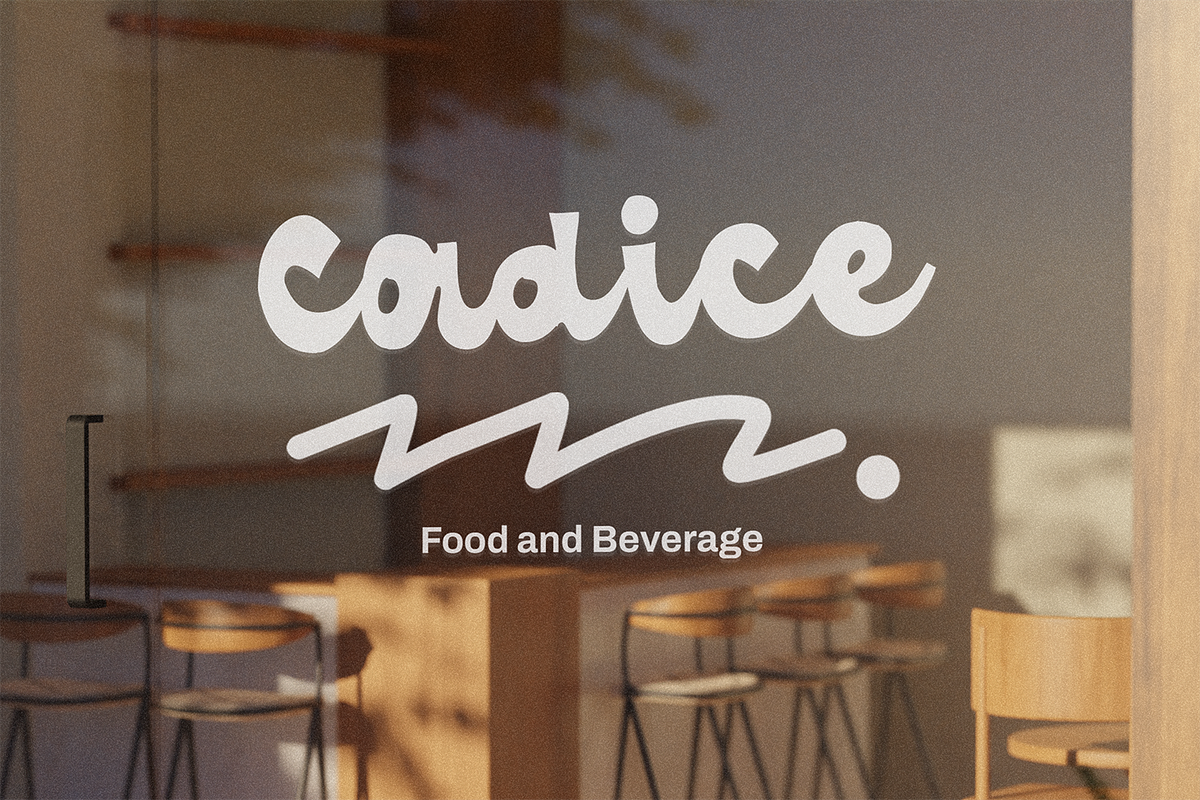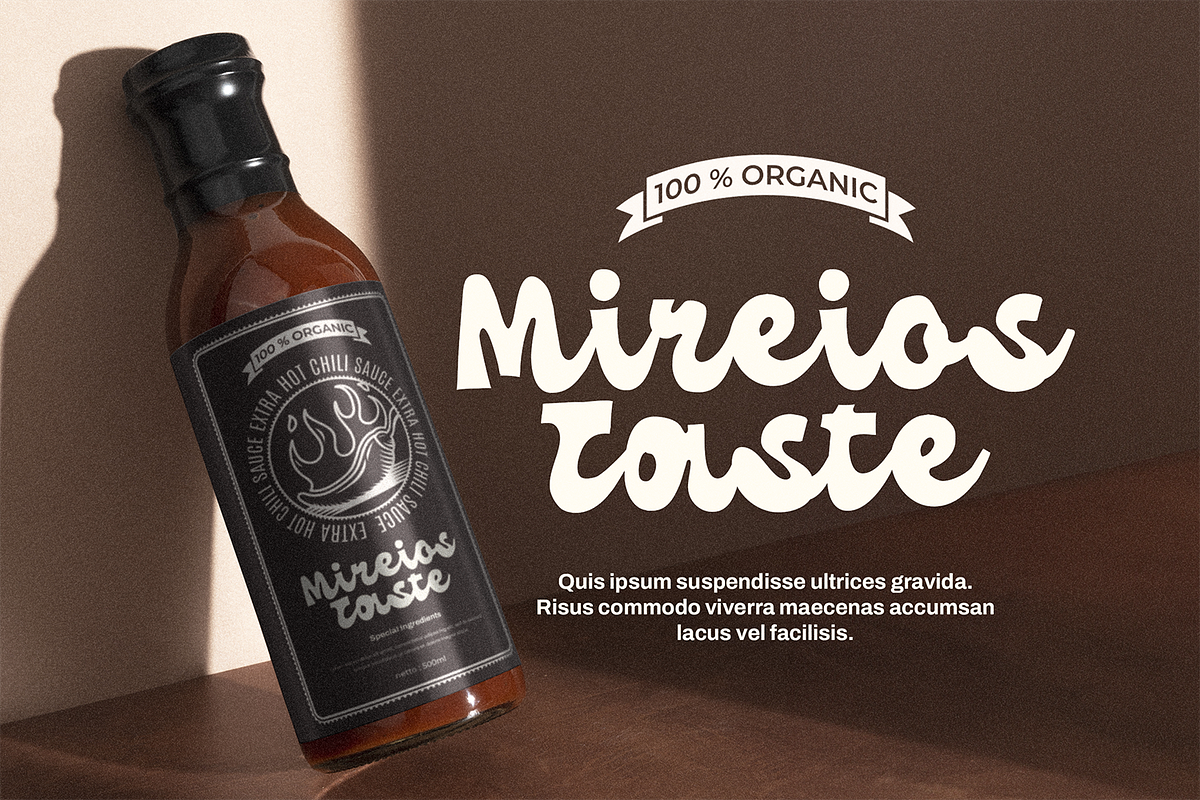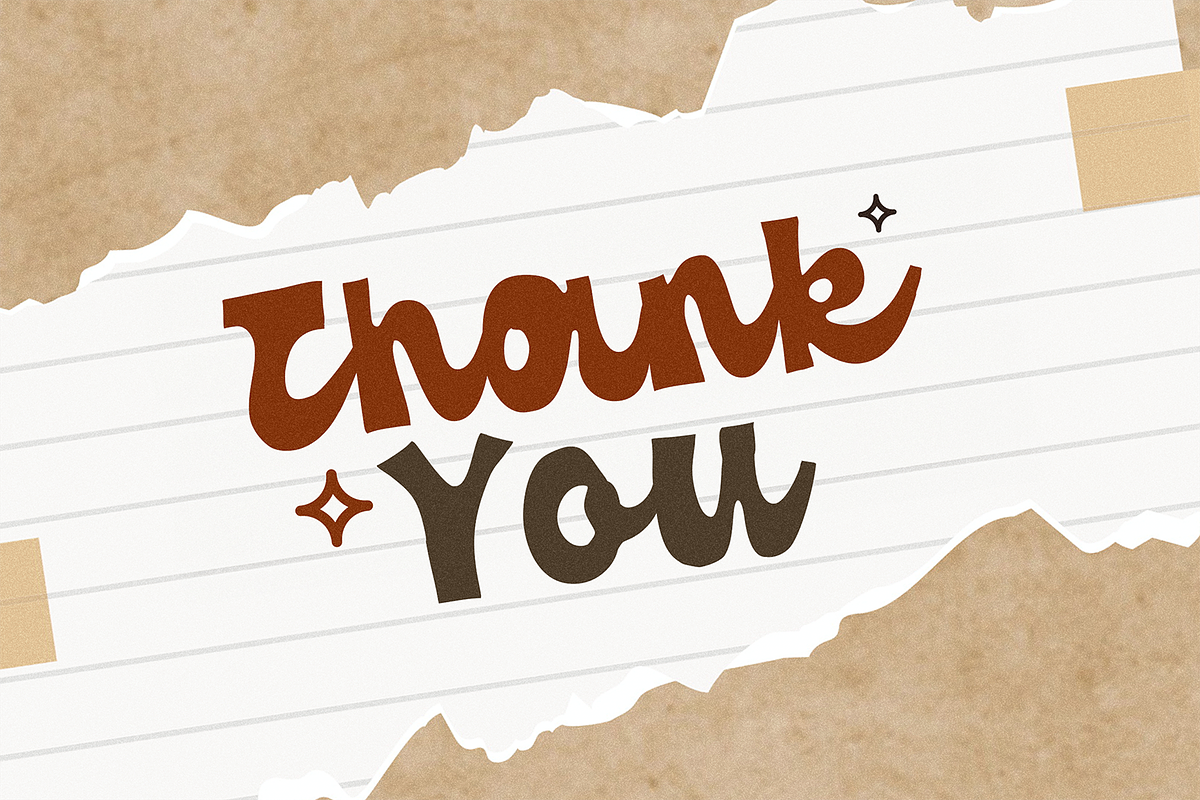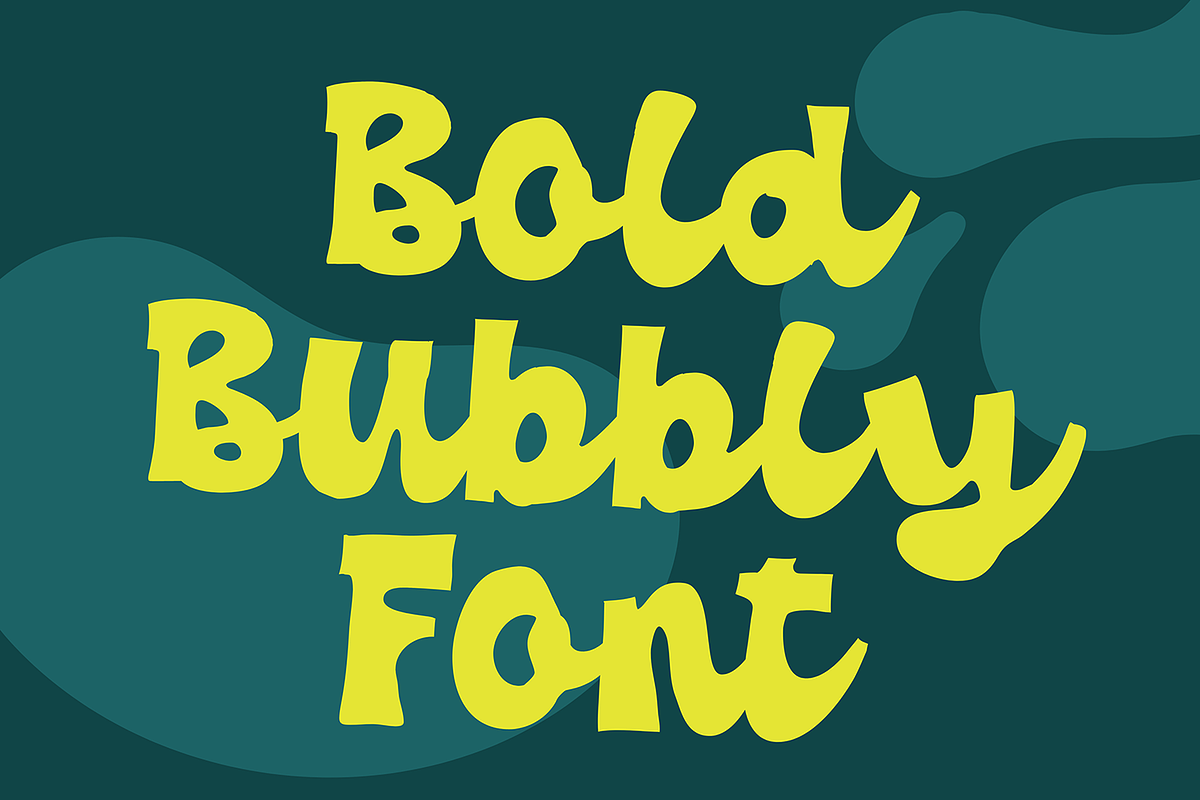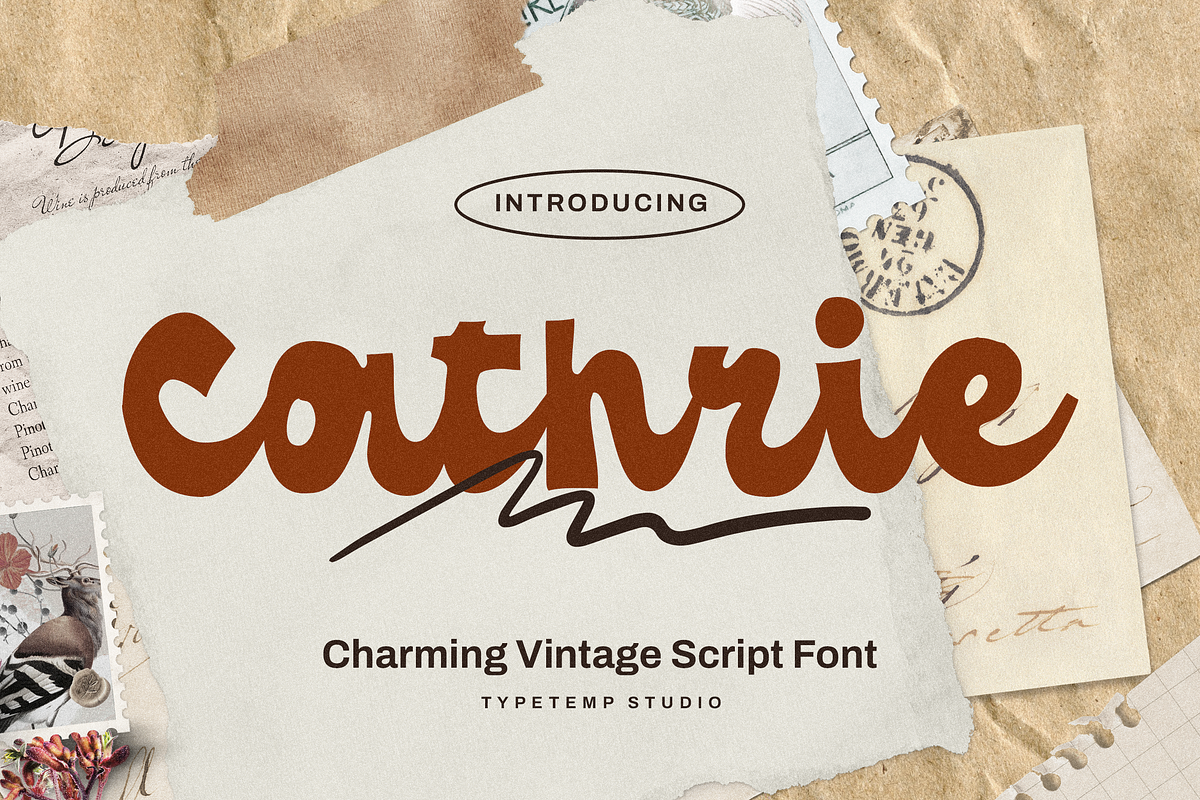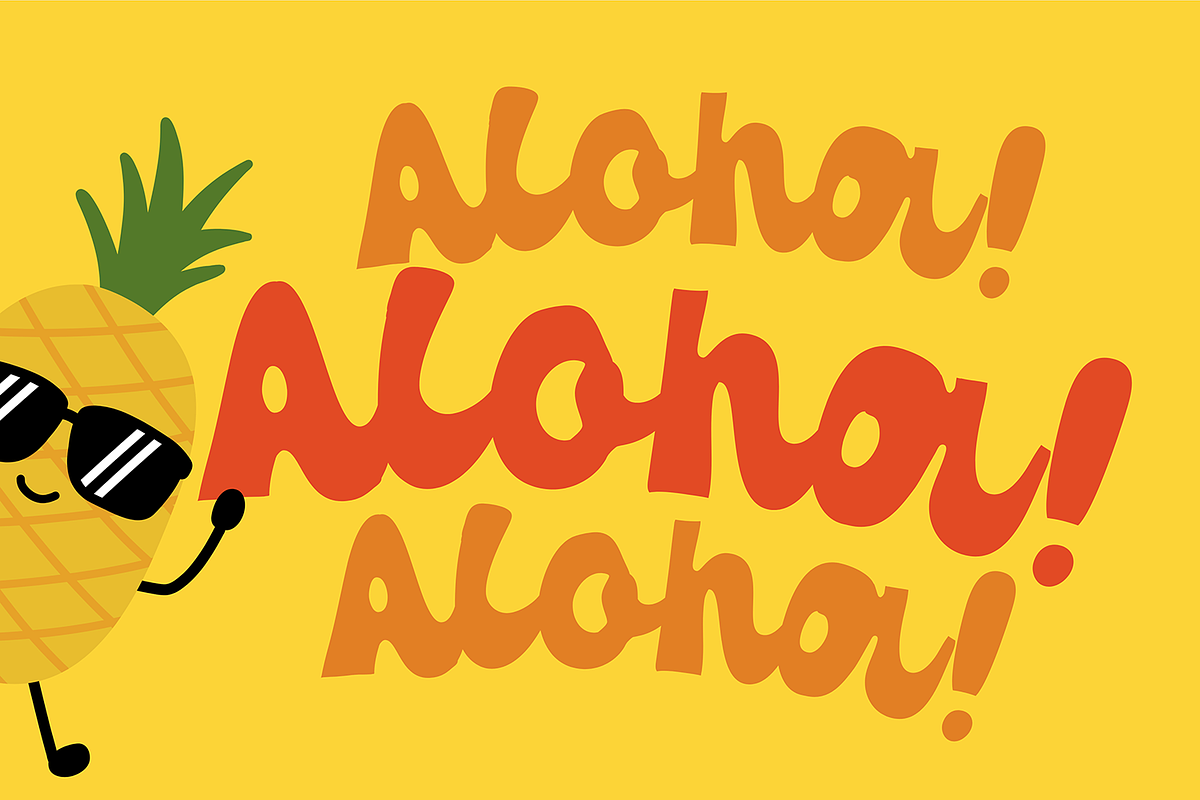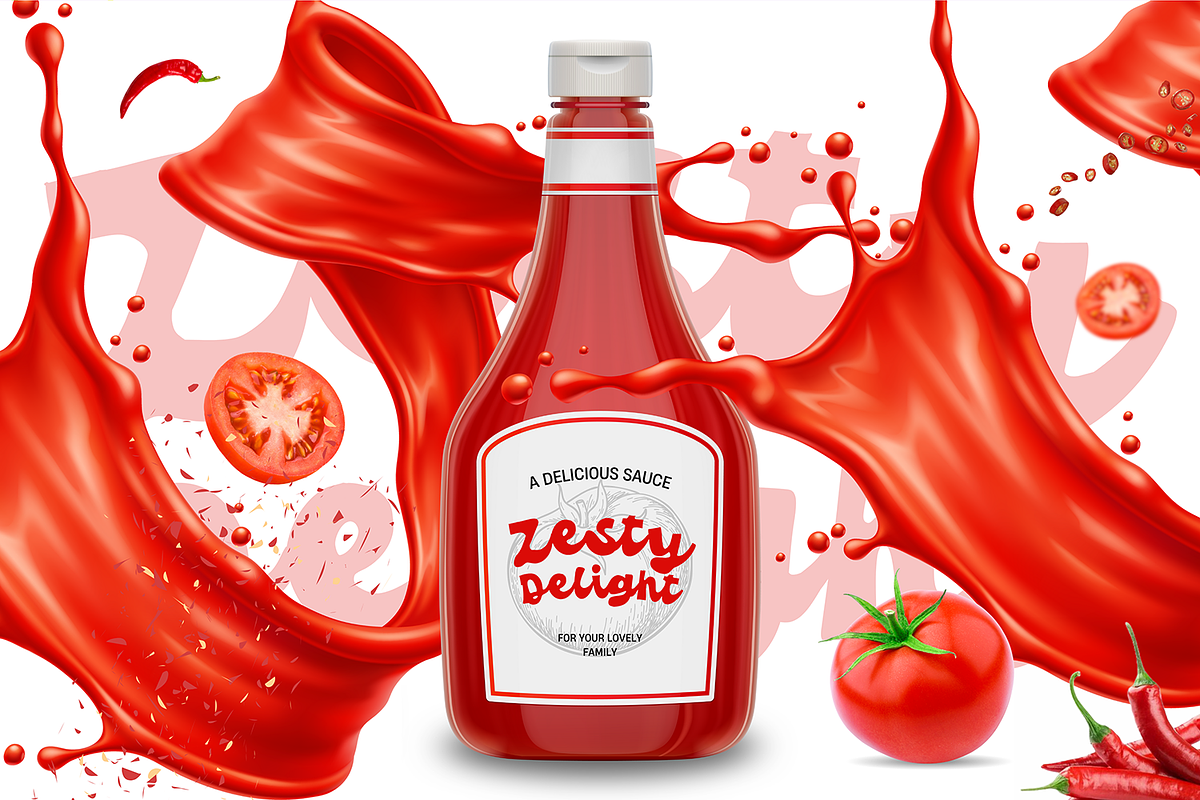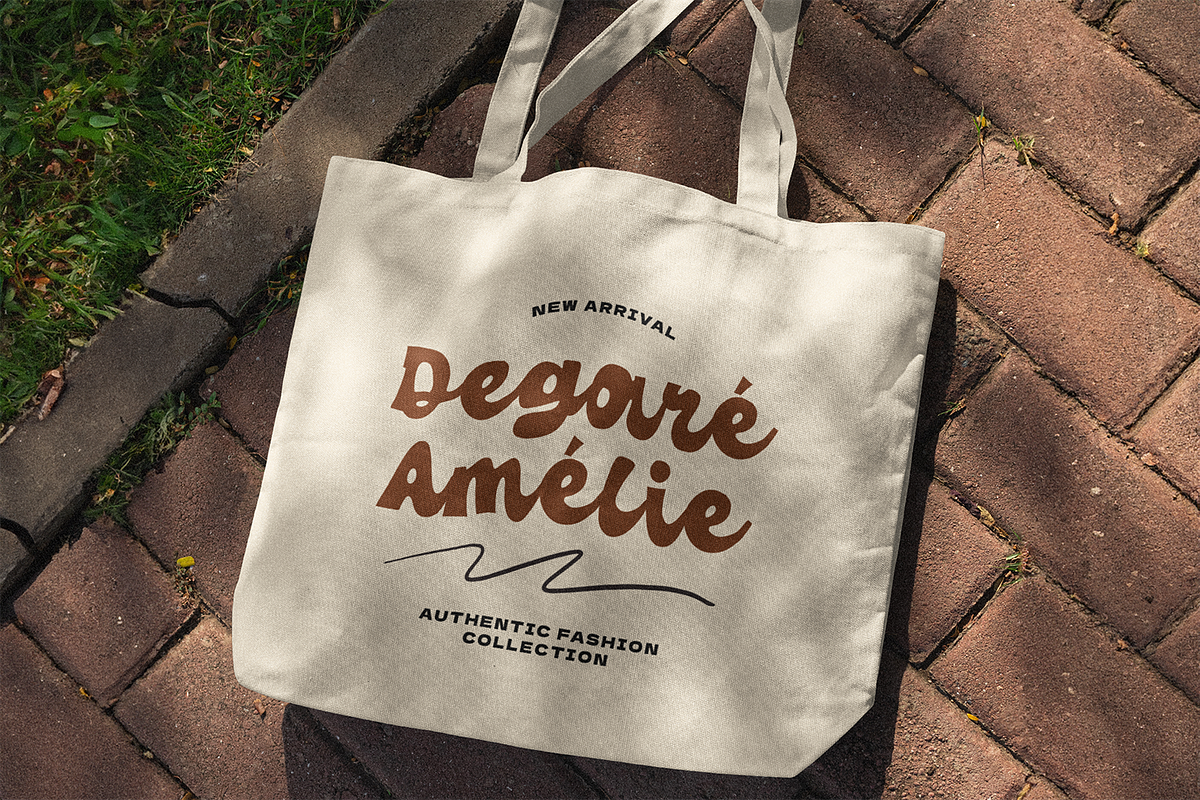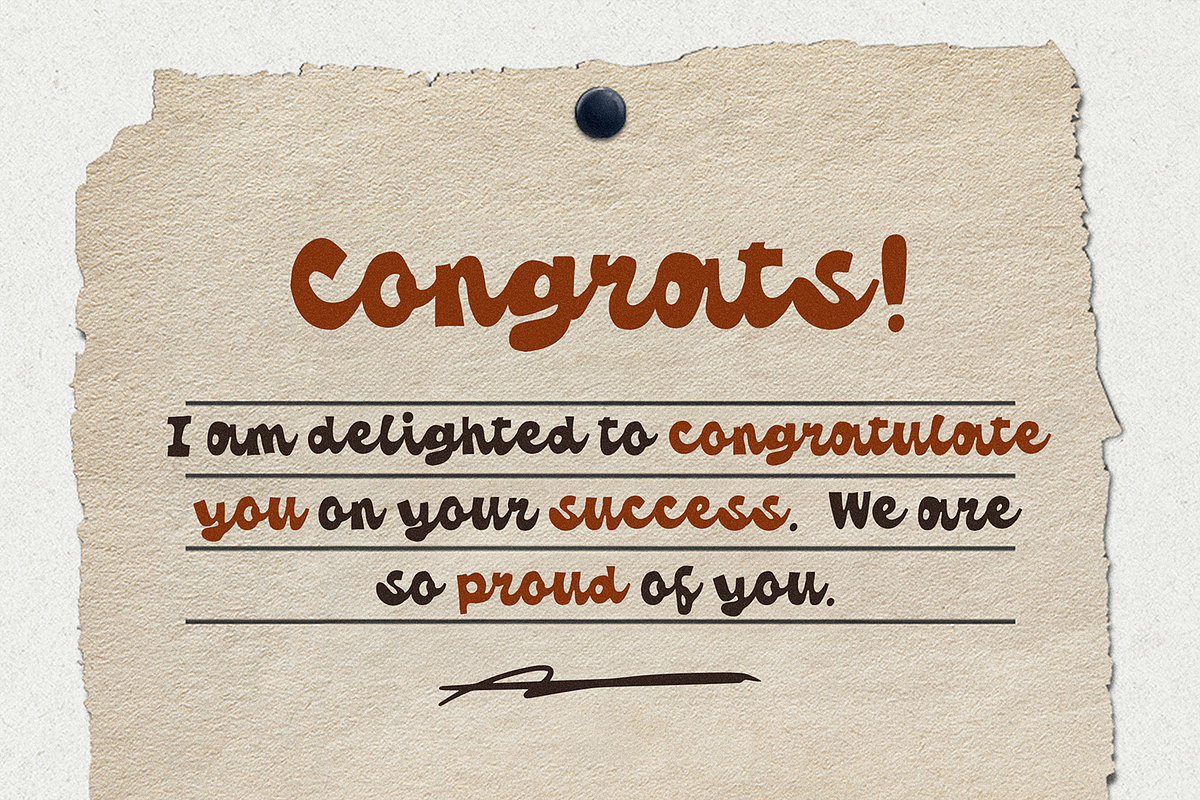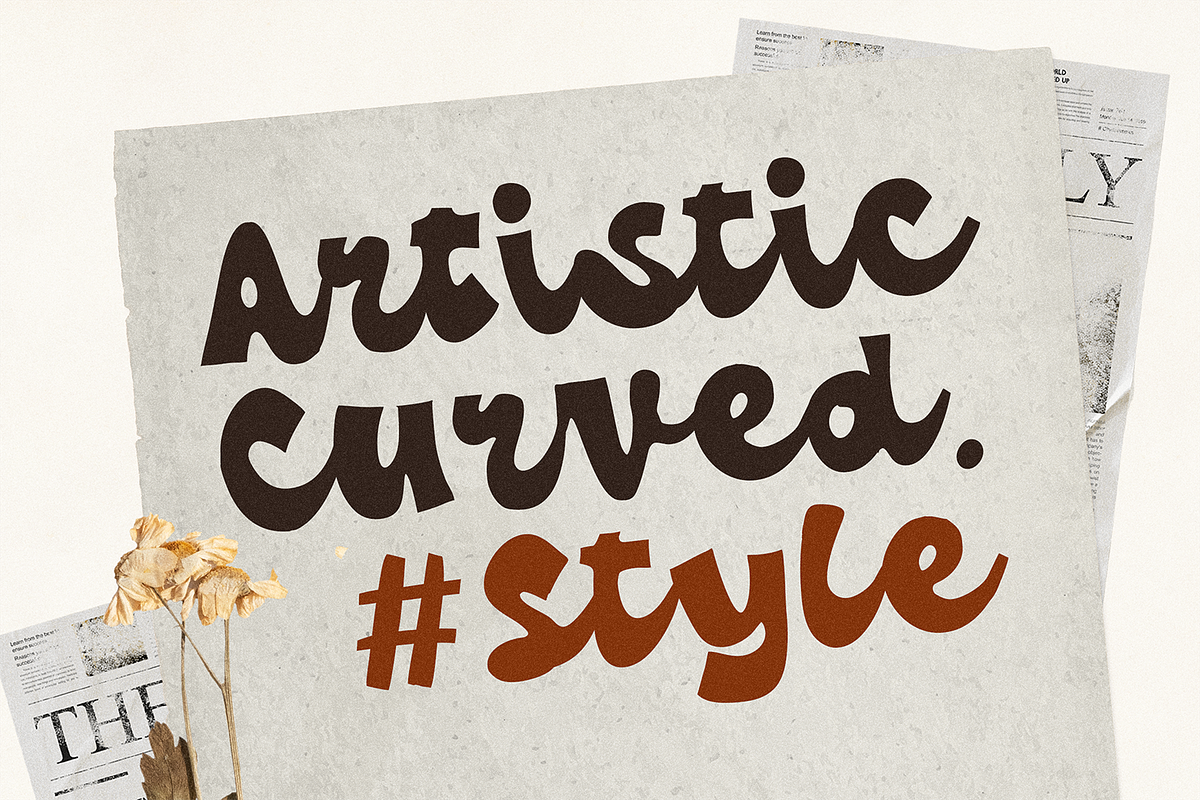
Cathrie Vintage Script
Cathrie is a charming vintage script font that combines retro elegance with modern versatility. Designed with bold curves and smooth handwritten strokes, this font captures the timeless beauty of vintage lettering while staying stylish and readable. Perfect for branding, packaging, posters, invitations, logos, and social media designs, Couthrie adds a warm nostalgic feel to every project.
Whether you’re working on retro-inspired designs, crafting a unique wedding invitation, or building a strong brand identity, Couthrie offers the perfect balance of charm and functionality. Its bold yet graceful style makes it suitable for headlines, quotes, product labels, and advertising that needs to stand out with a touch of vintage character.
Bring your creative projects to life with Couthrie, a vintage script font that speaks elegance, personality, and timeless design.
- Unique Letterforms